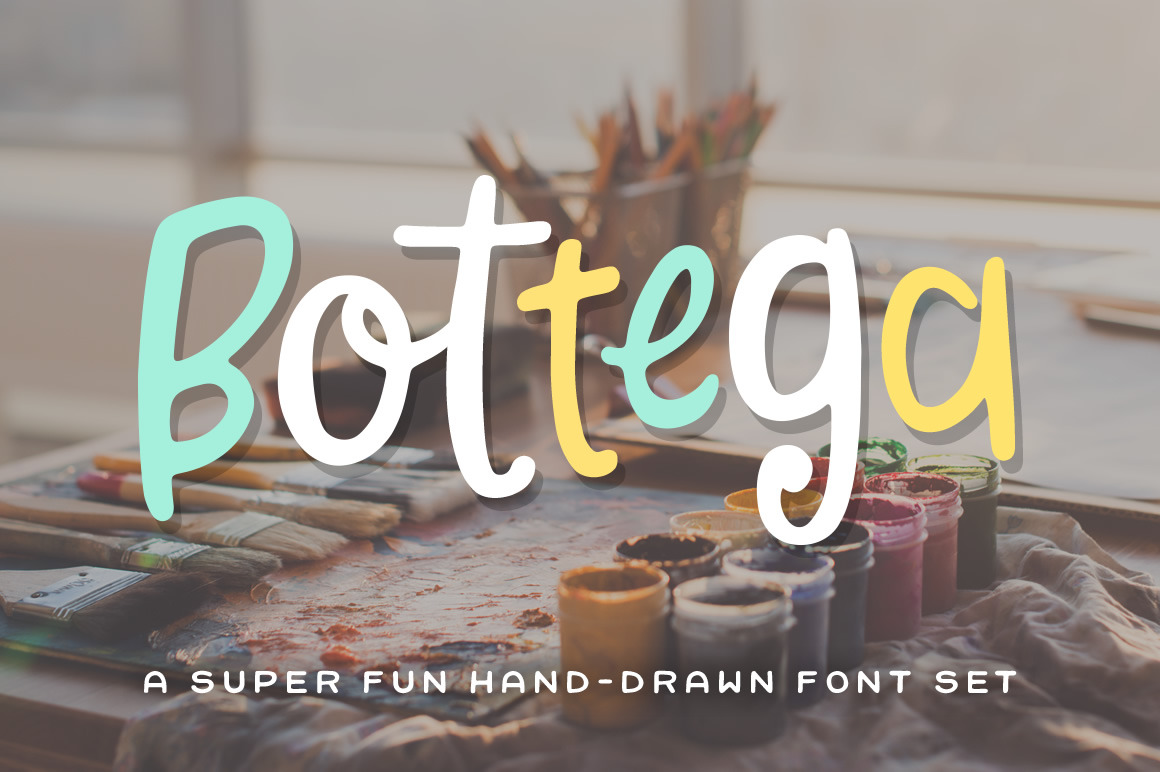
Bottega Font Set
Bottega is a super fun, hand-drawn font that comes with three sets of lowercase and uppercase letters so that your designs can really get that "hand-drawn" feel.